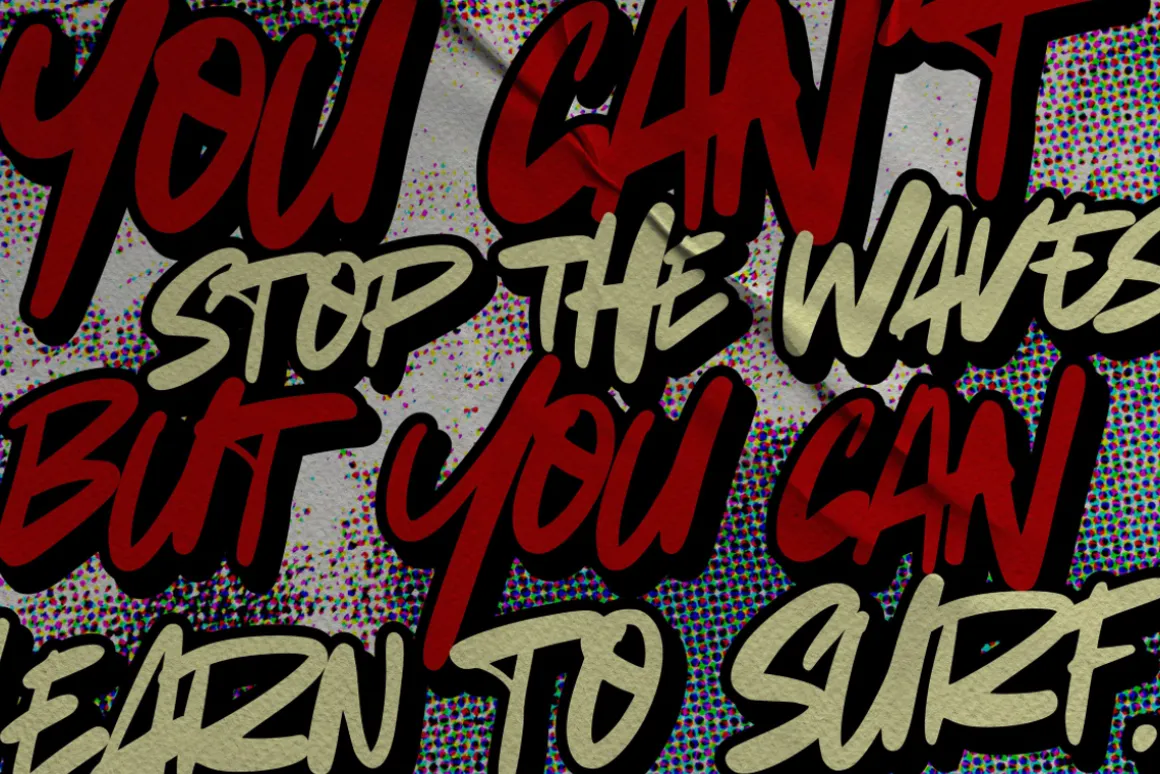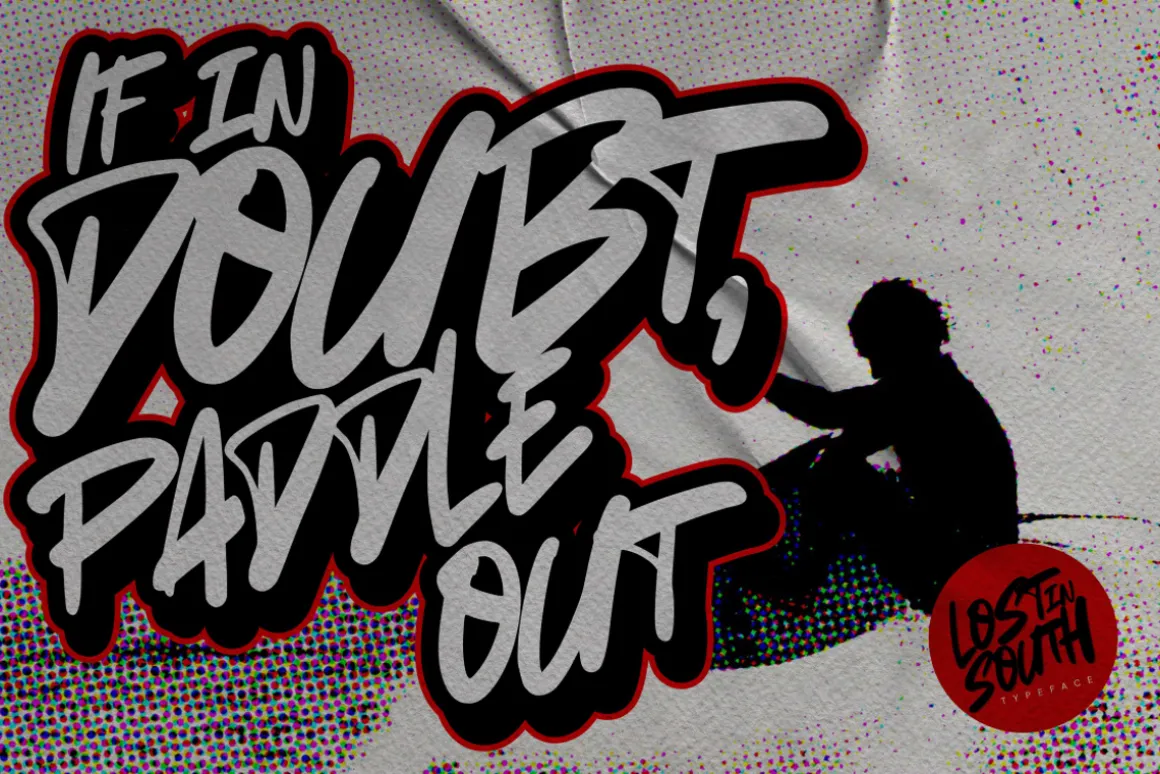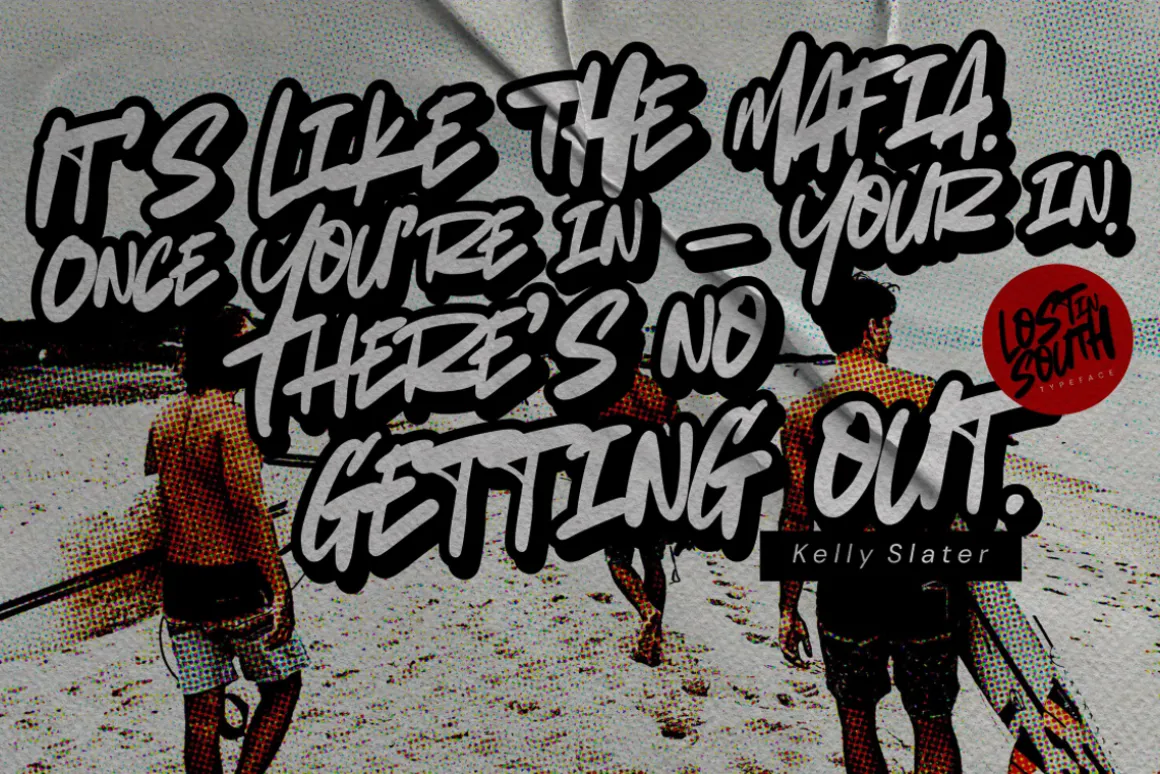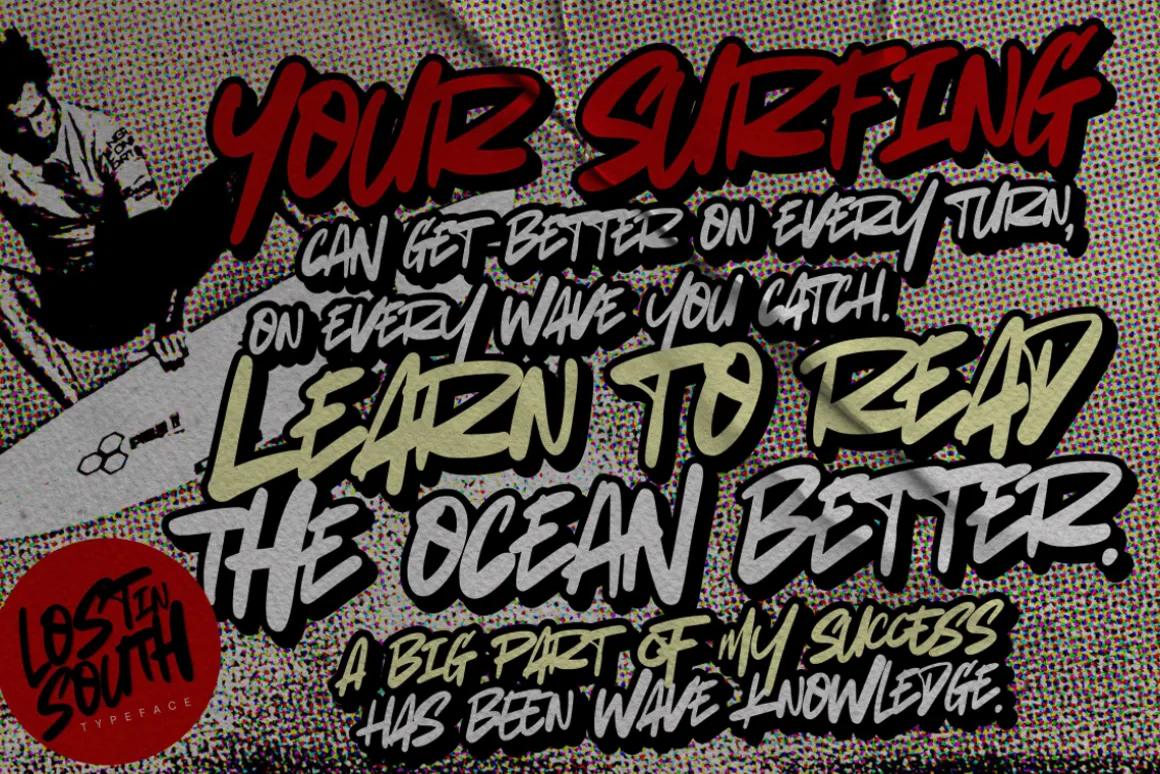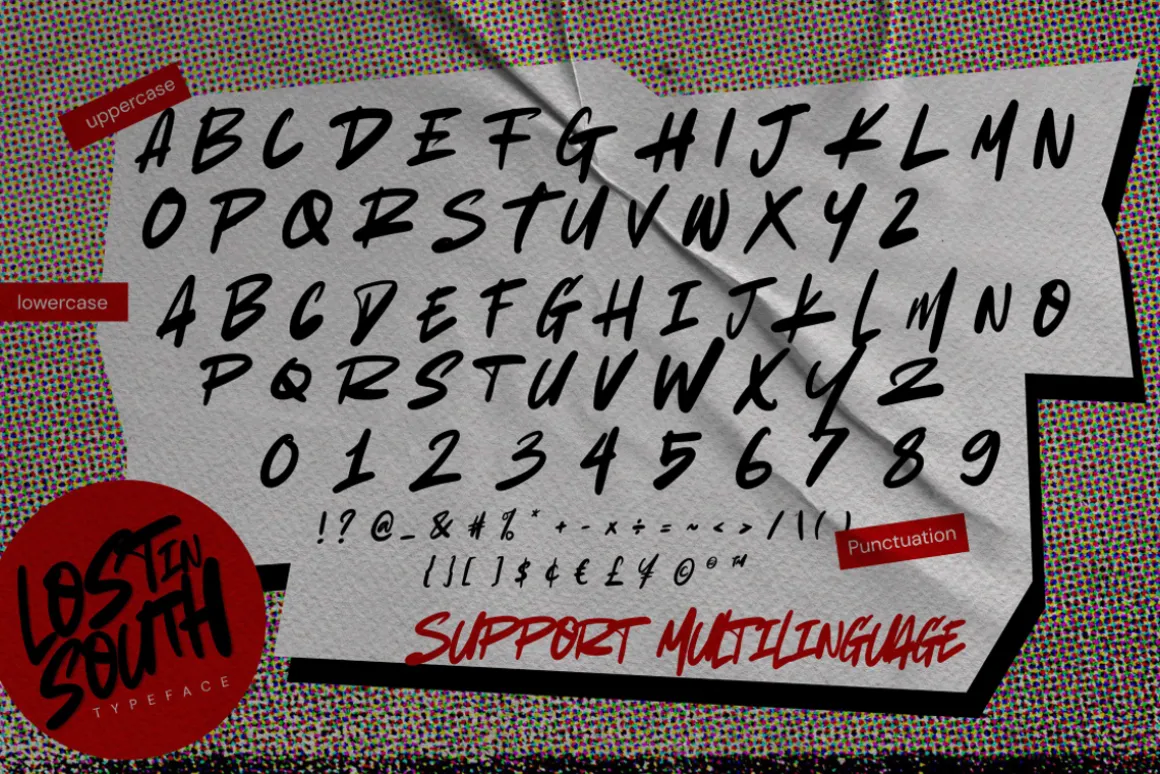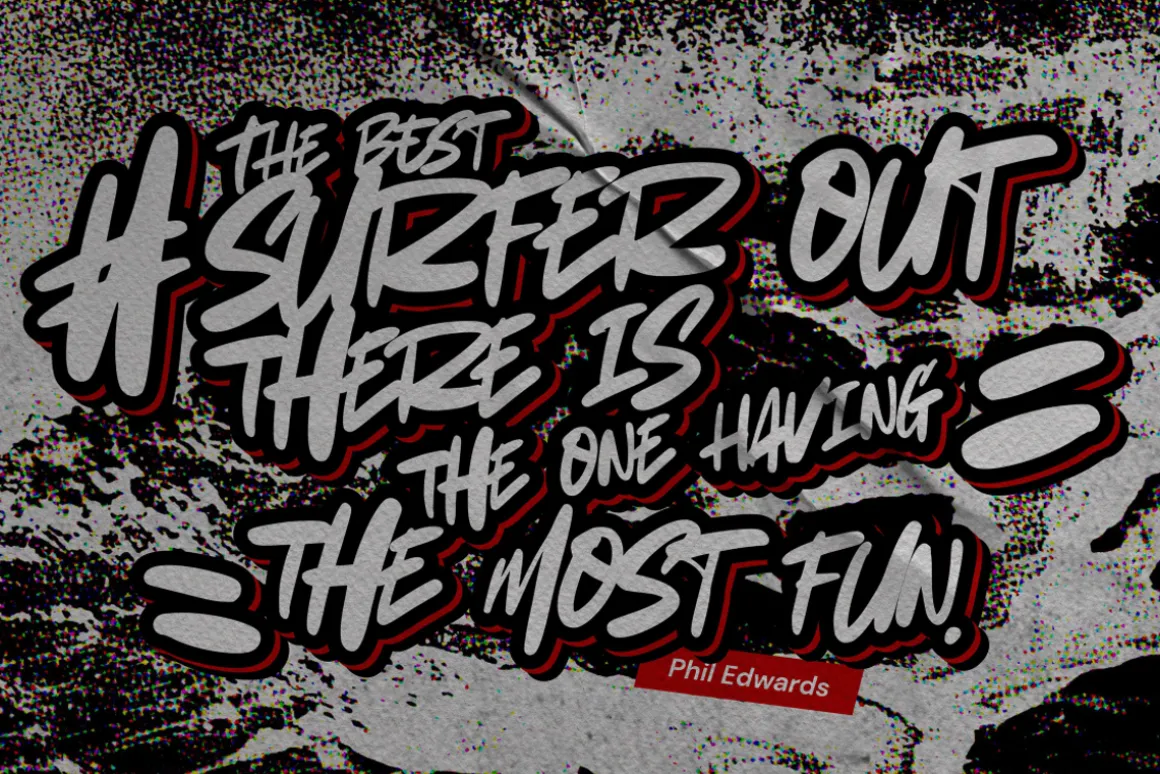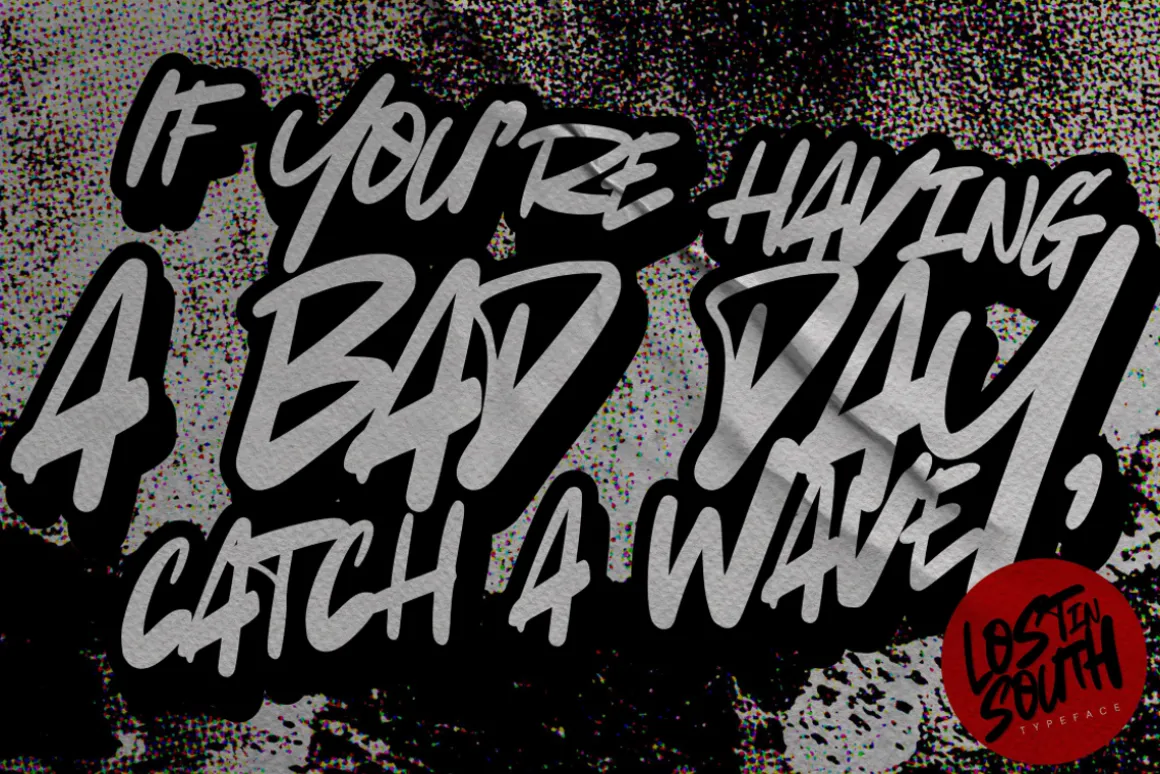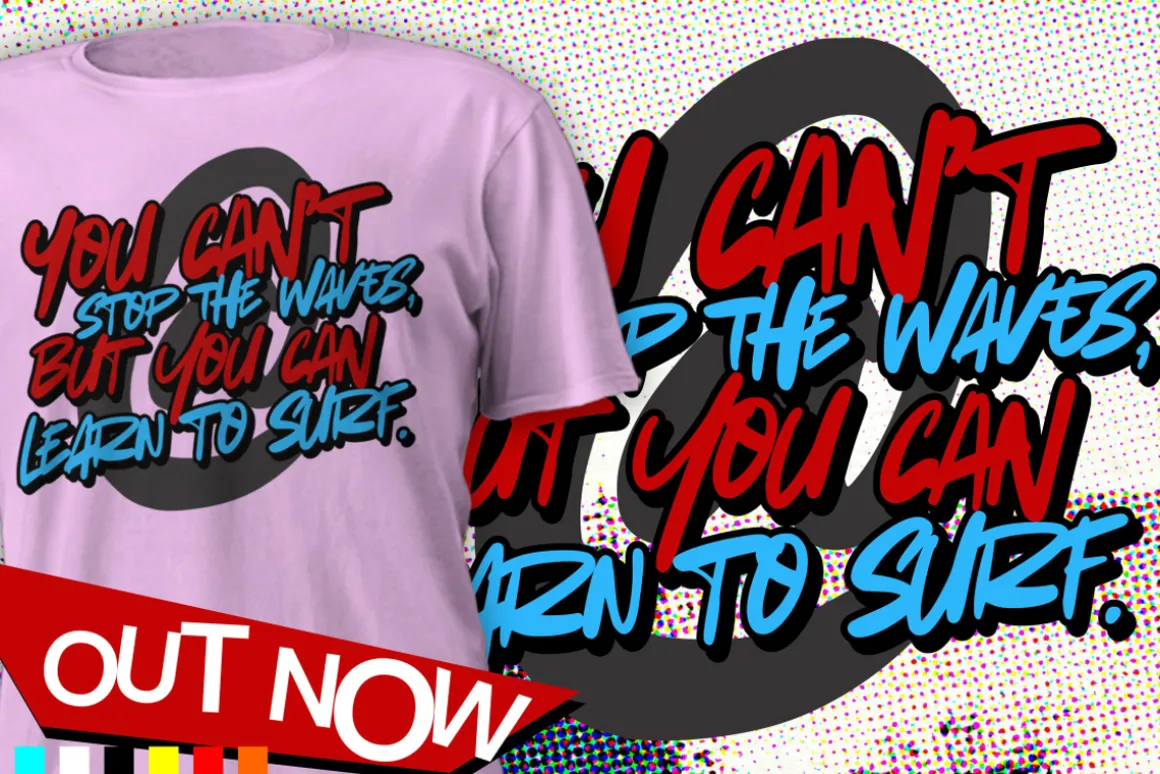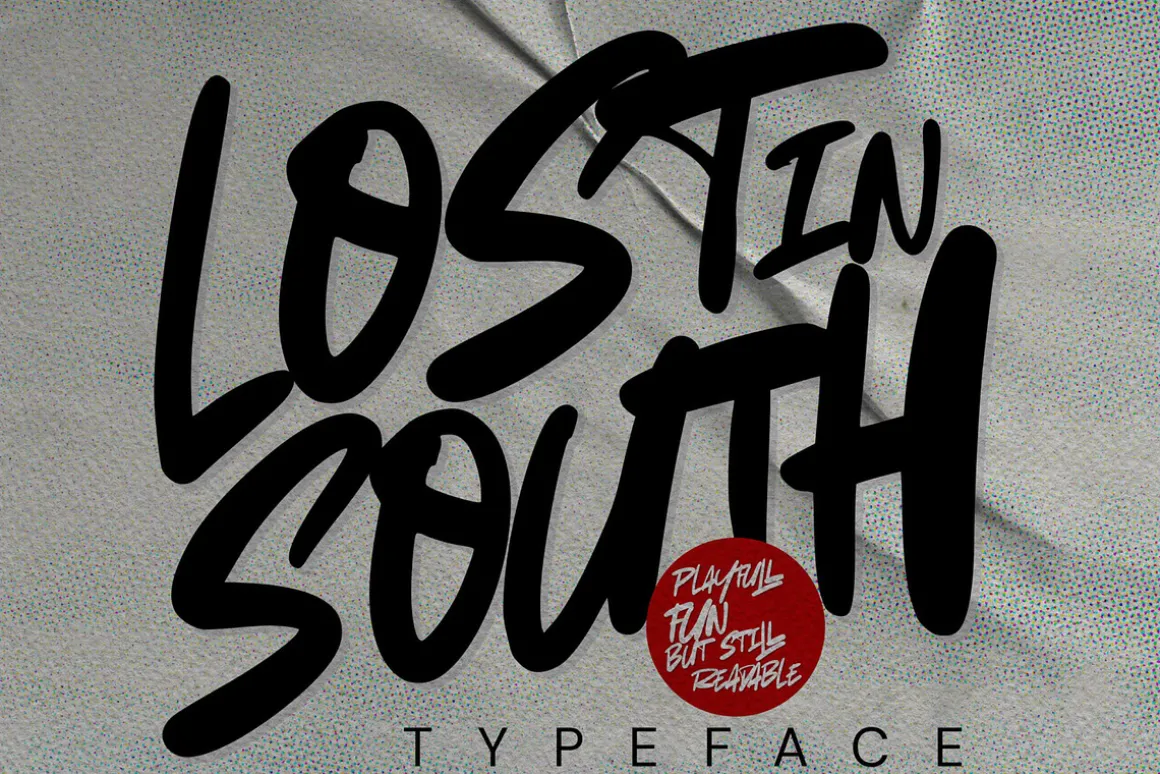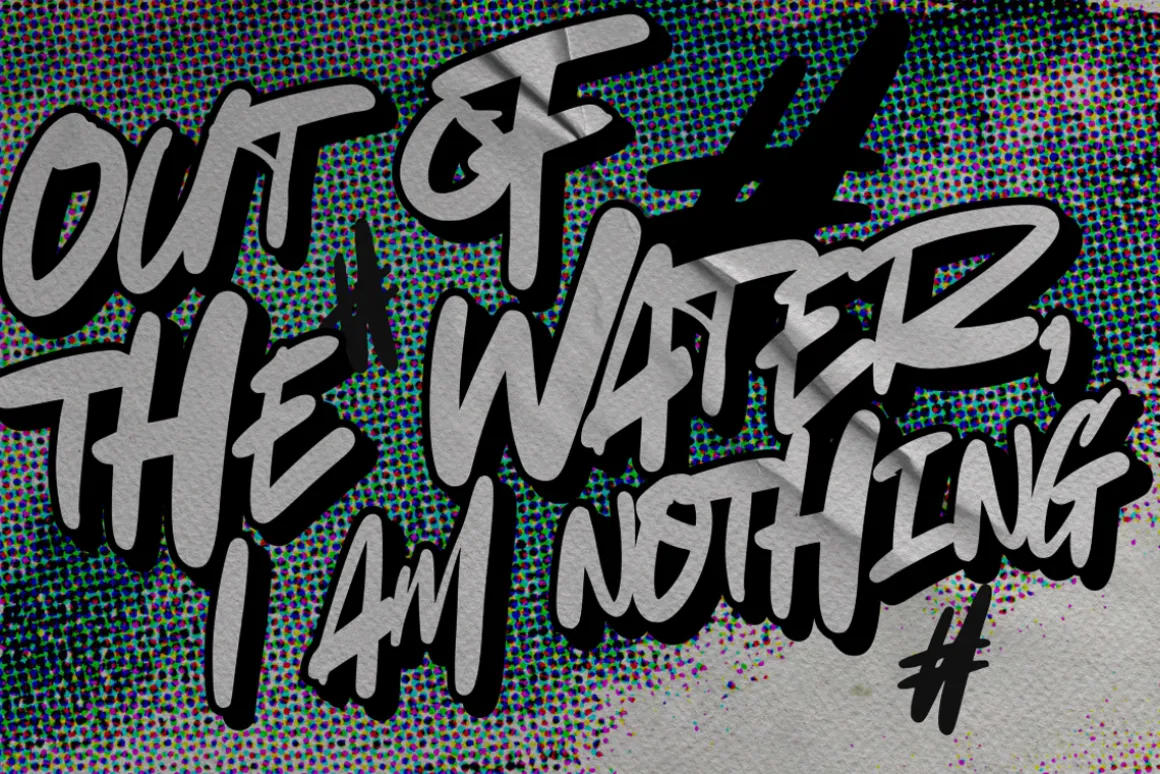
Lost in South – is a Cute & Authentic Script font with a natural handwritten feel.This handmade font will make your design has a beautiful natural touch for each details.It is perfect for any design project as Invitation,logo, book cover, craft or any design purposes.This font is PUA encoded which means you can access all of glyphs with ease!
- Ligatures